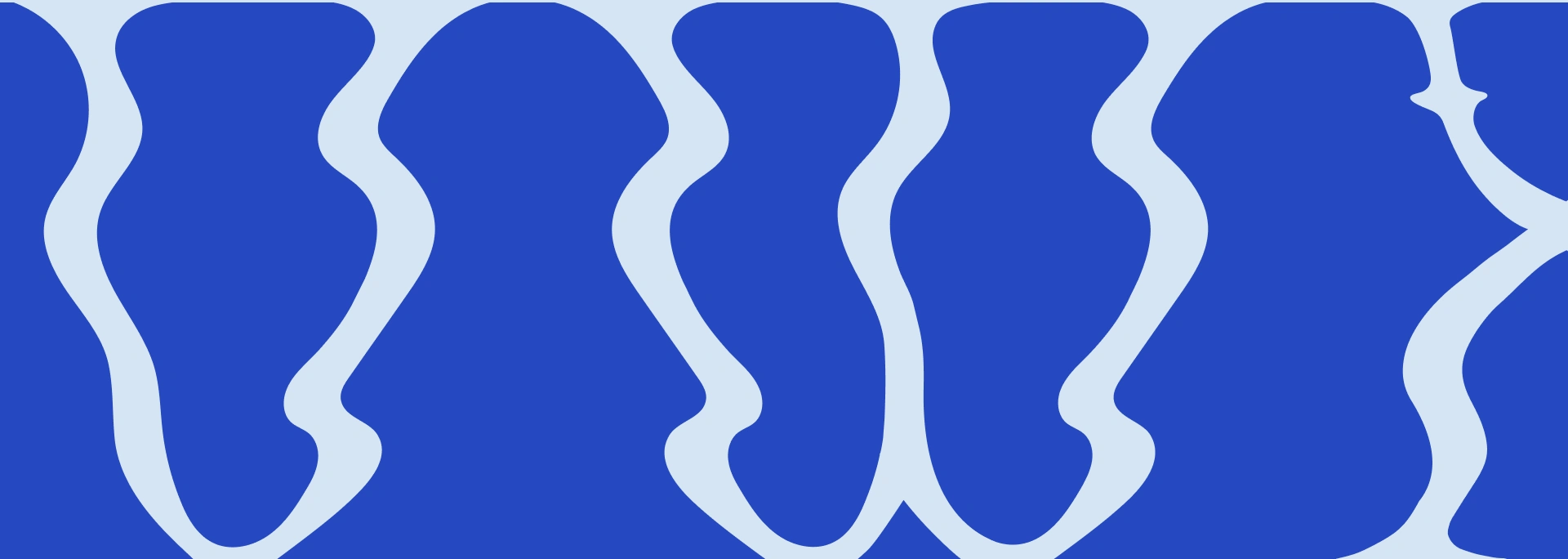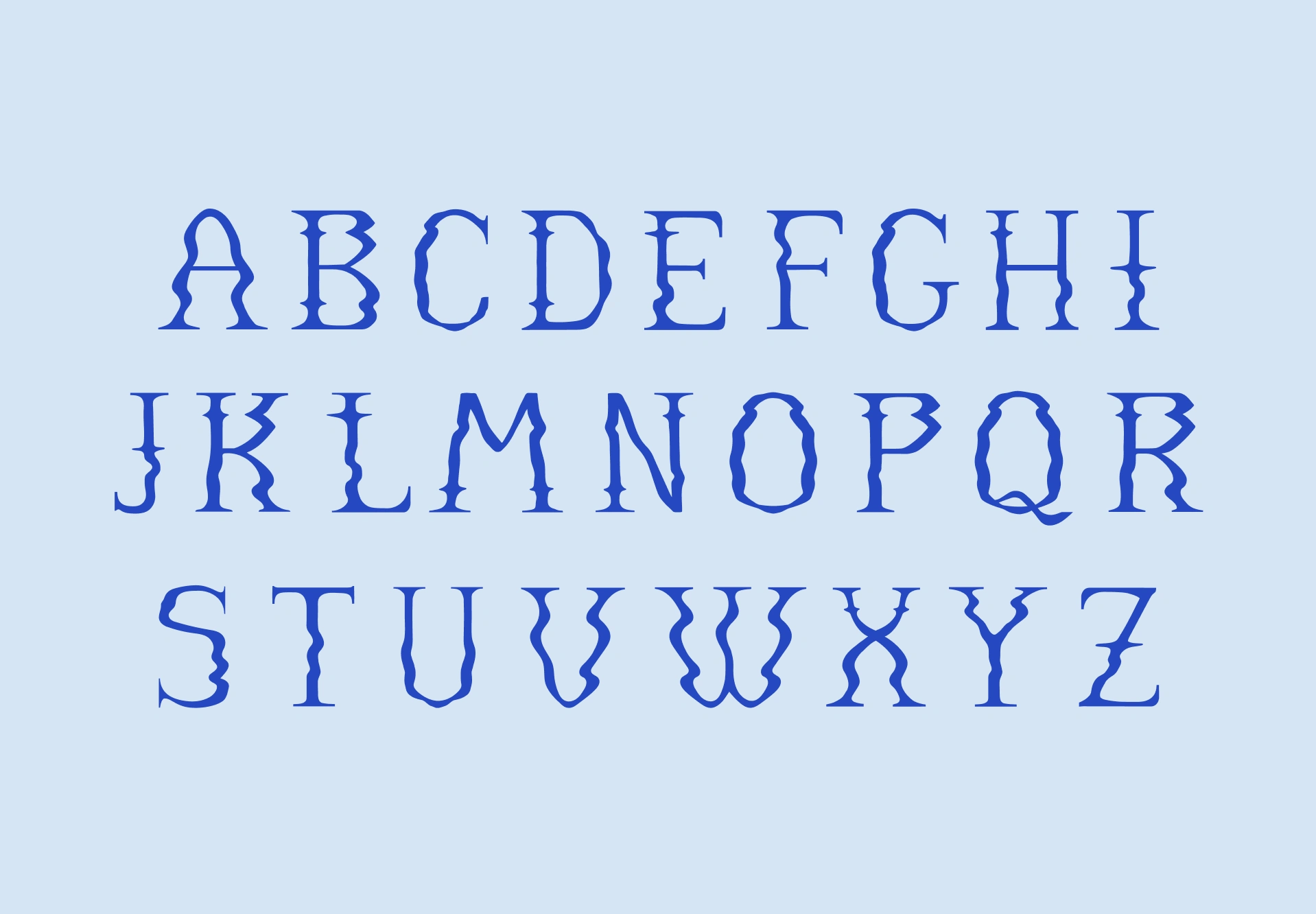
This unique font draws its inspiration from the mesmerizing distortion of images witnessed amidst intense heat, creating a captivating visual representation.